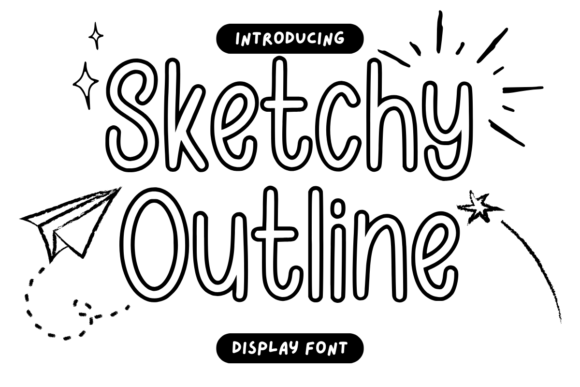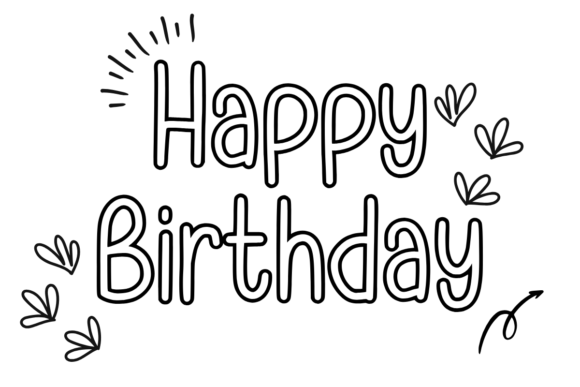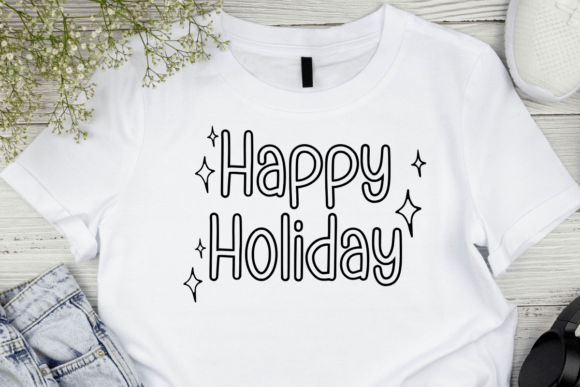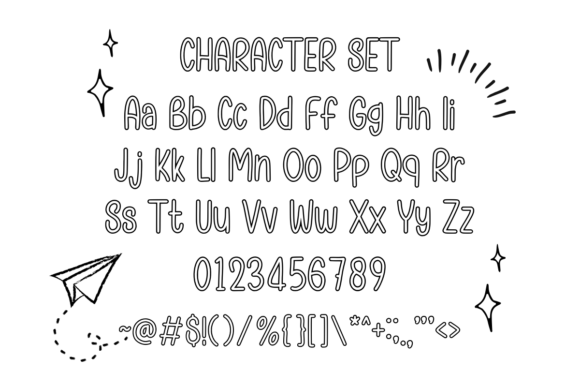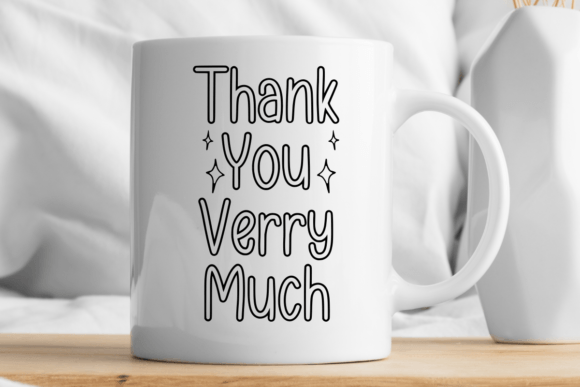
Sketchy Outline Font
Sketchy Outline is a unique and cool display font. Whatever the topic, this font will be a great asset to your font library, as it has the potential to enhance any creation.